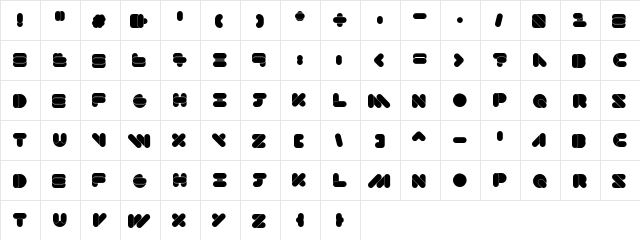
Solaria ExtraRounded
Design Context for Solaria Typeface
Solaria uses gentle rounded endings to create a warm, inviting typographic personality — less corporate than geometric sans, more refined than playful display fonts.
A natural fit for tech startups, health and wellness brands, children's products, and friendly consumer apps.
Font Pairing: Pairs well with a rounded or humanist sans for body copy, maintaining the friendly tone without relying on Solaria to carry extended reading.
Pro Tip: Pair Solaria with a geometric sans for a balanced system — the rounded softness works as a warm counterpoint to harder-edged companions.